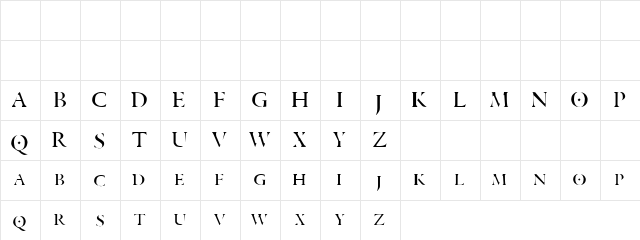
Poney Dash Regular
Design Context for Poney Dash Typeface
Poney Dash is a composed and adaptable typeface that performs quietly and consistently across a wide range of design contexts.